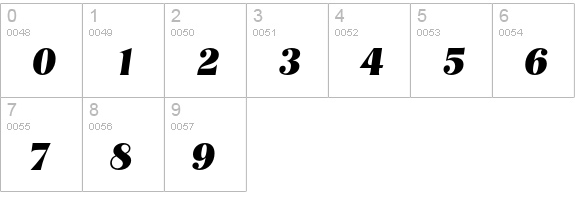
NashvilleEF-BoldItalic font is a striking and dynamic typeface that exudes confidence and modernity. Its bold, slanted design adds a touch of flair to any project, making it perfect for headlines, titles, and bold statements. The sleek curves and sharp angles of NashvilleEF-BoldItalic make it a versatile choice for a wide range of design applications. What sets NashvilleEF-BoldItalic apart is that it is available for free download at FontsMarket.com. This means that you can easily access this eye-catching font without any cost, making it an excellent option for designers, creatives, and anyone looking to add a touch of sophistication to their projects. Don't miss out on the opportunity to elevate your designs with the bold and italic charm of NashvilleEF-BoldItalic - download it for free today!